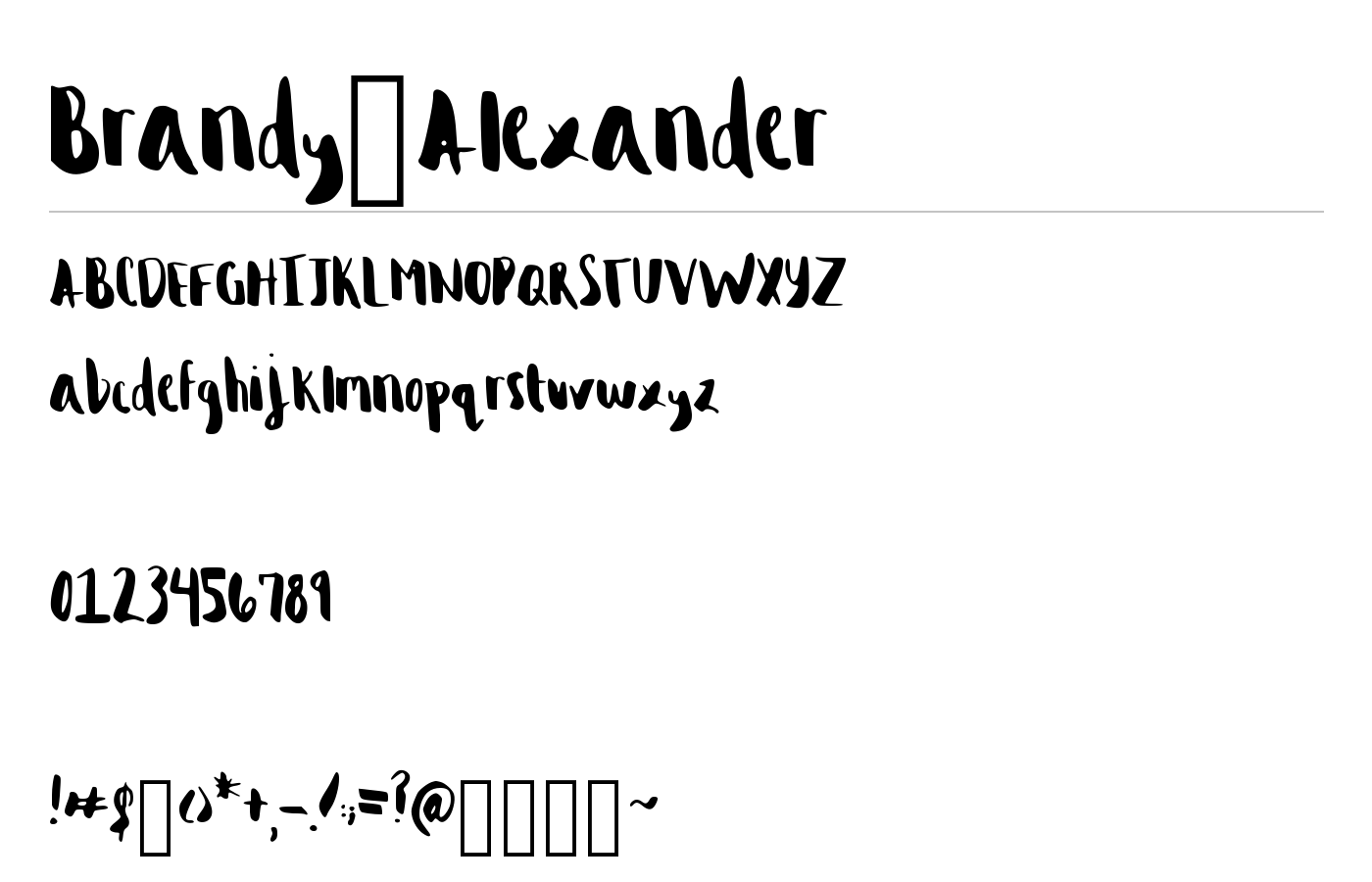
Brandy Alexander is a playful, hand-drawn sans serif font with a casual and friendly vibe. Its tall, narrow letters with uneven strokes and quirky shapes give it a handmade, artistic feel, making it ideal for creative projects, informal branding, and fun headlines where personality and approachability are key. This font works well in designs that want to express creativity and individuality without sacrificing readability.
Brandy_Alexander Font
About Brandy_Alexander Font